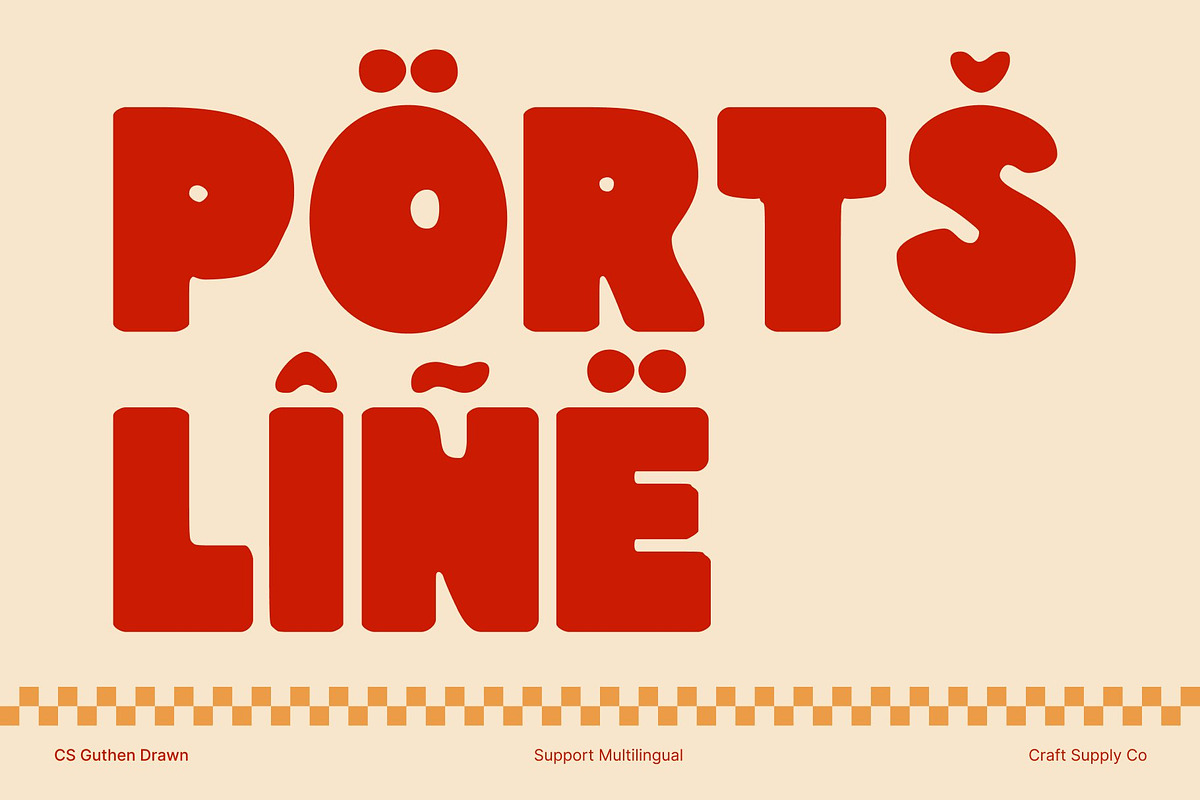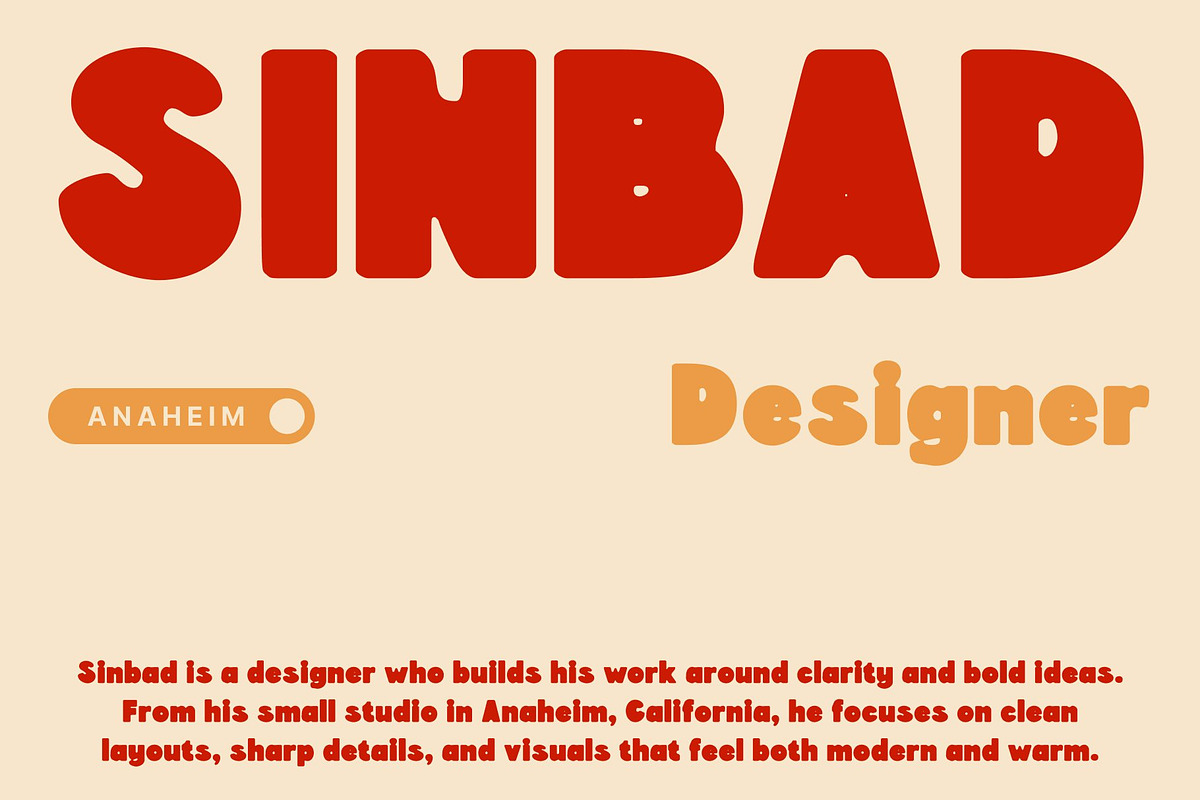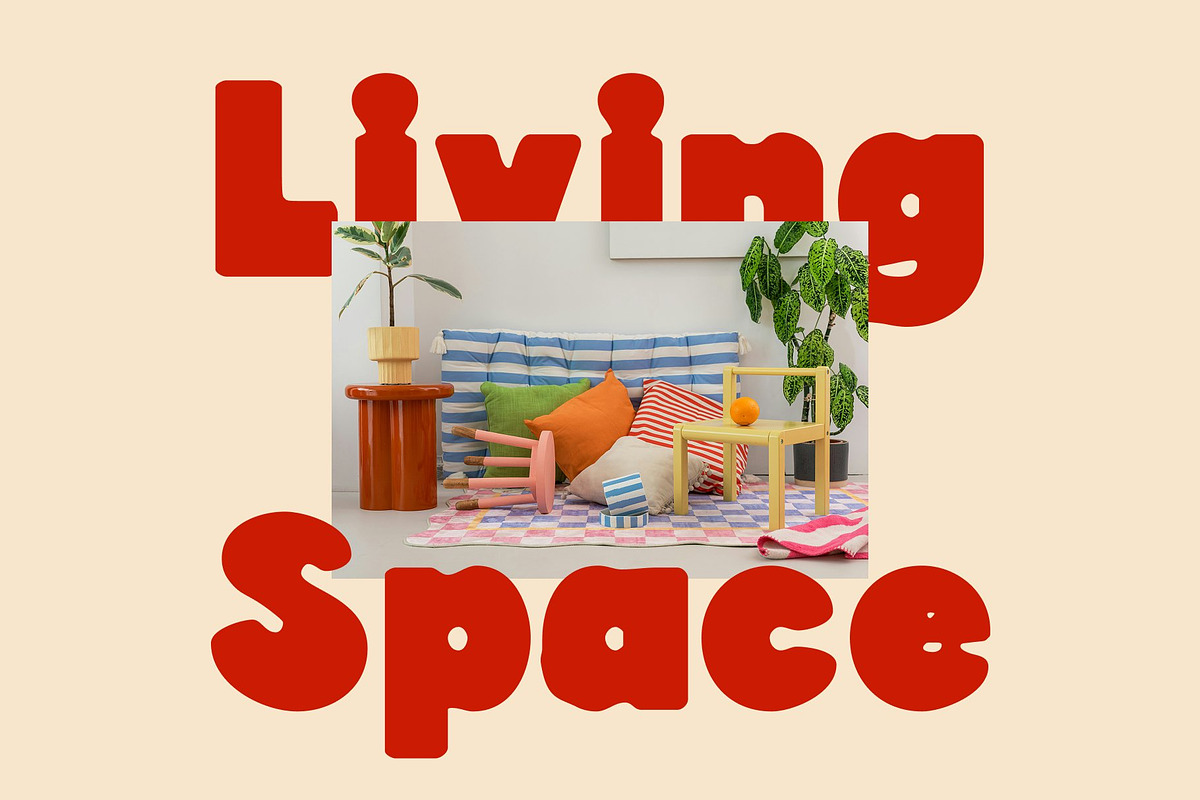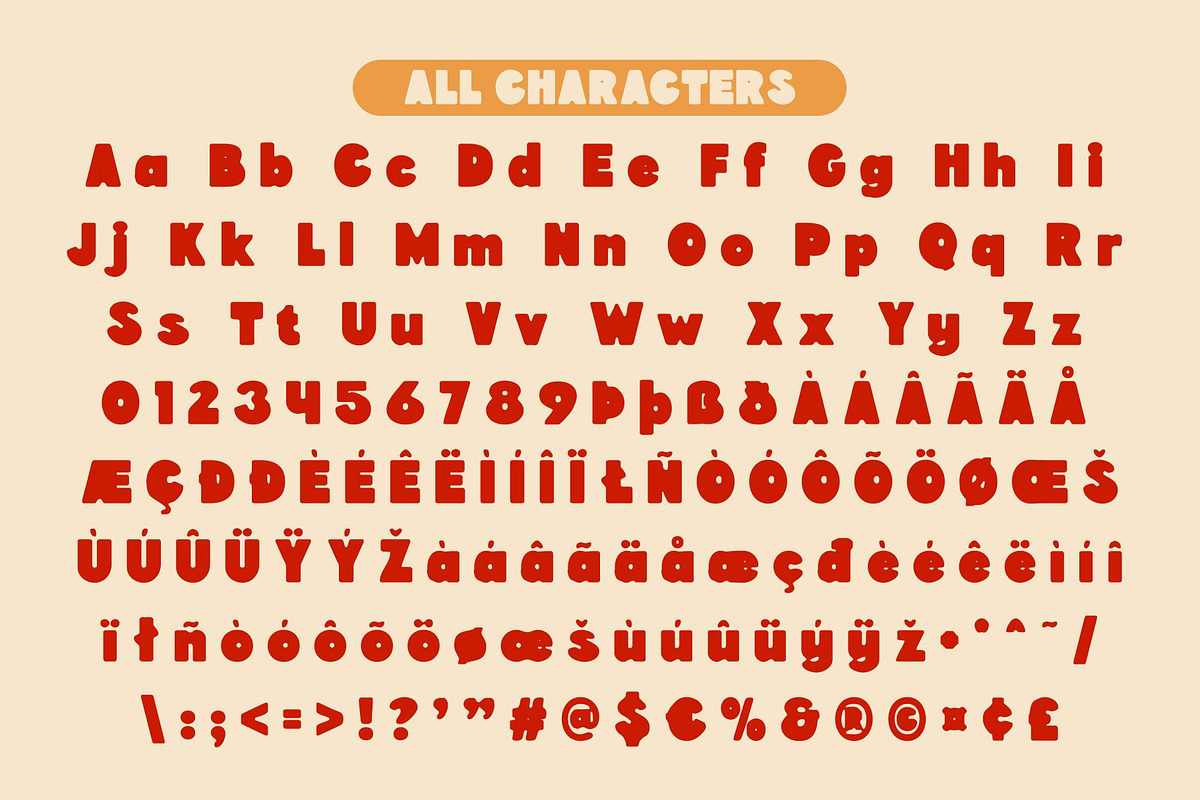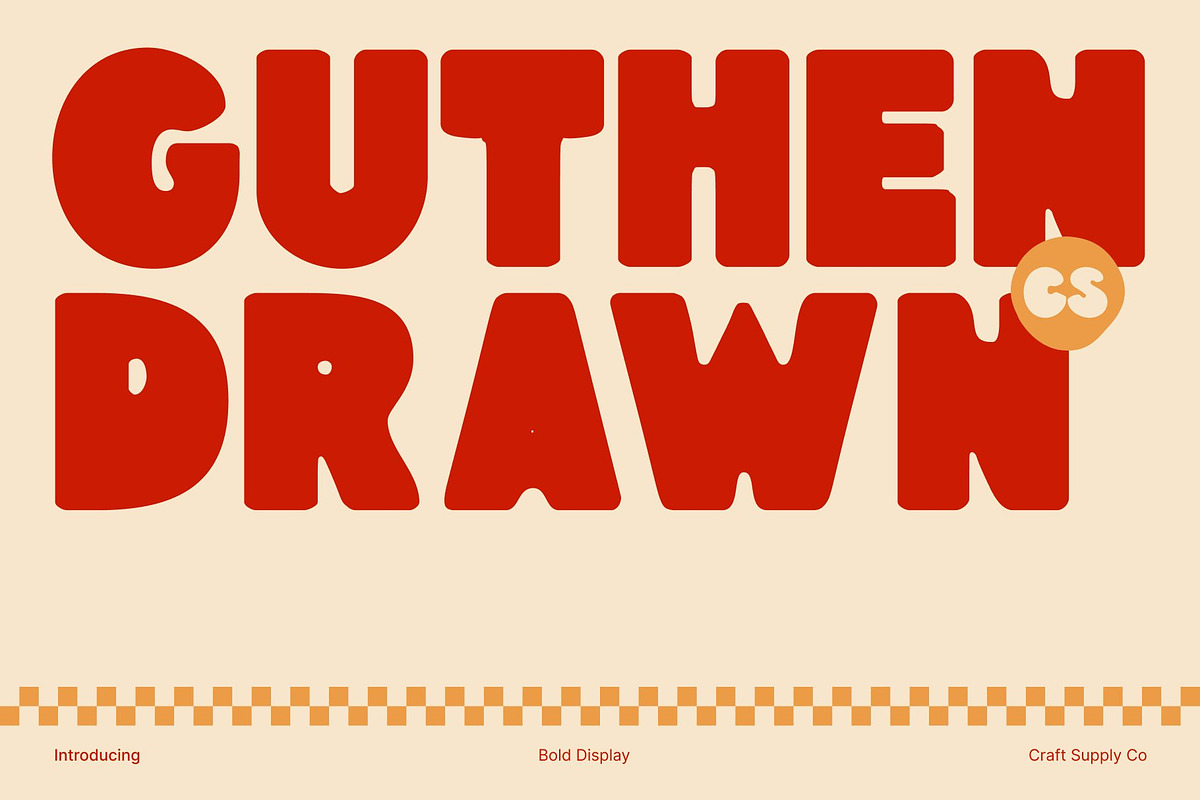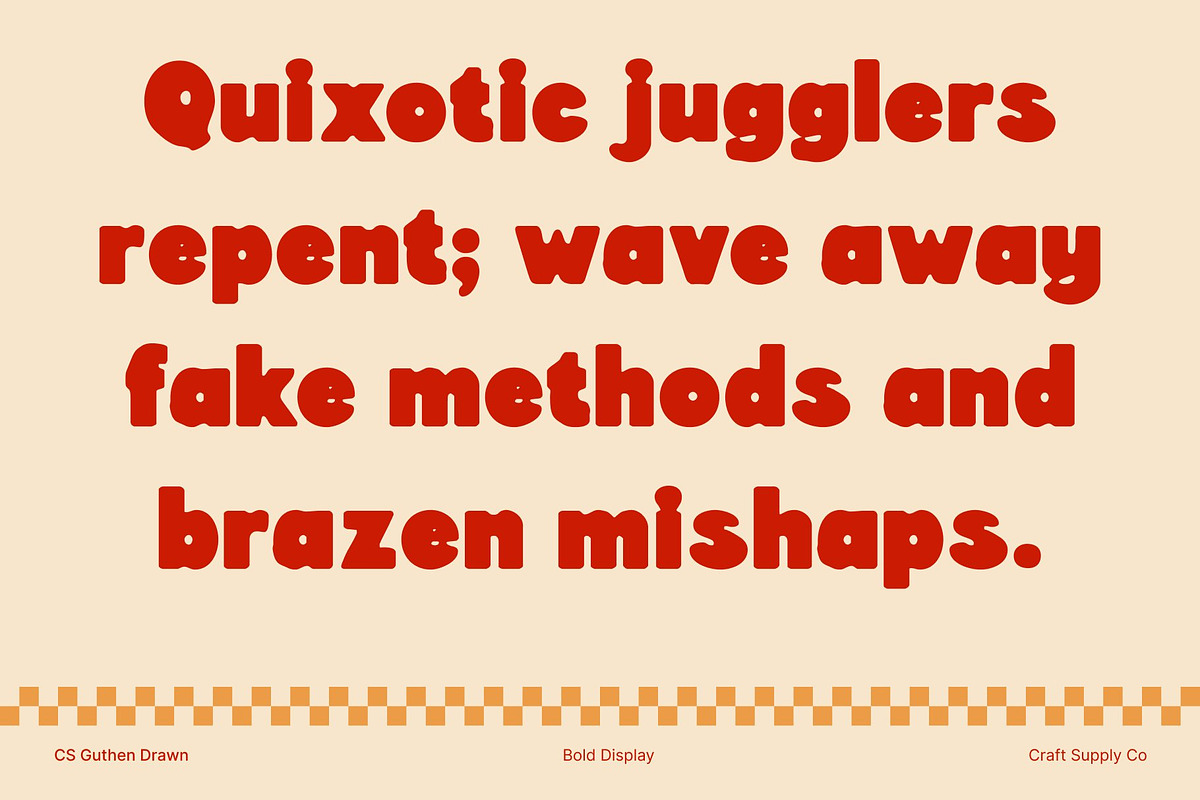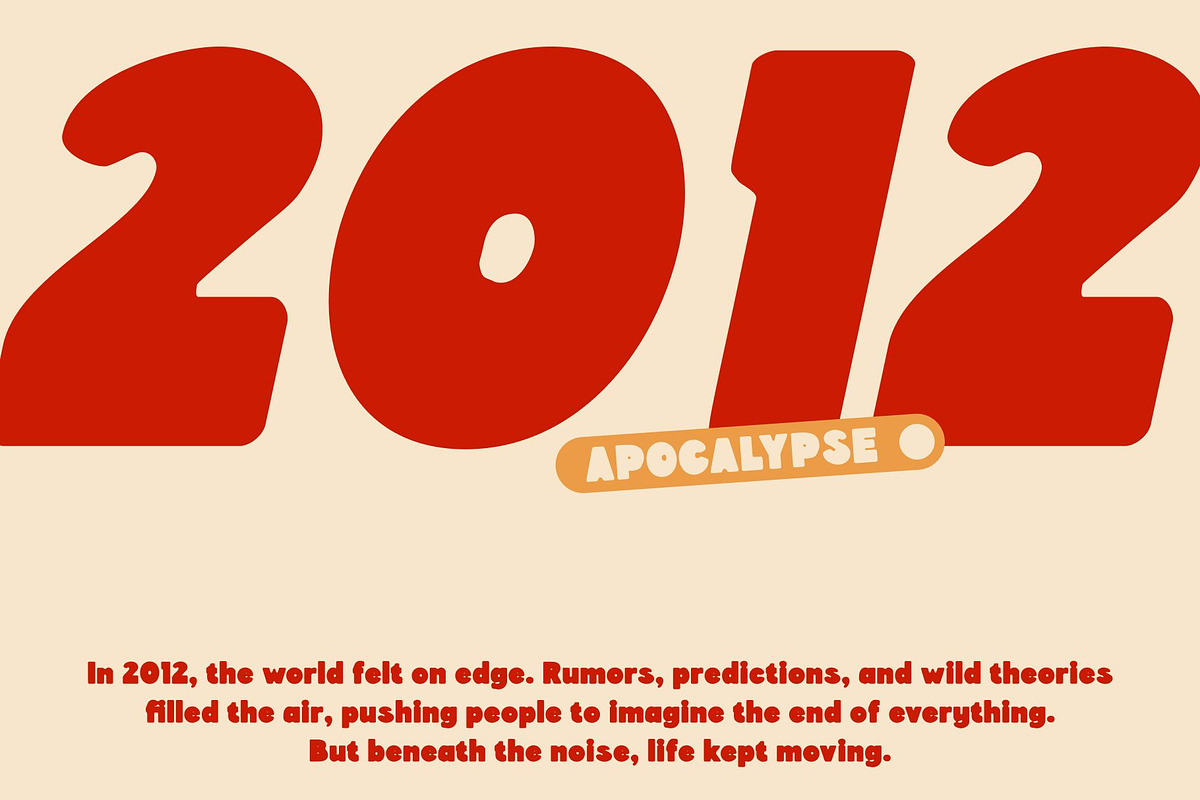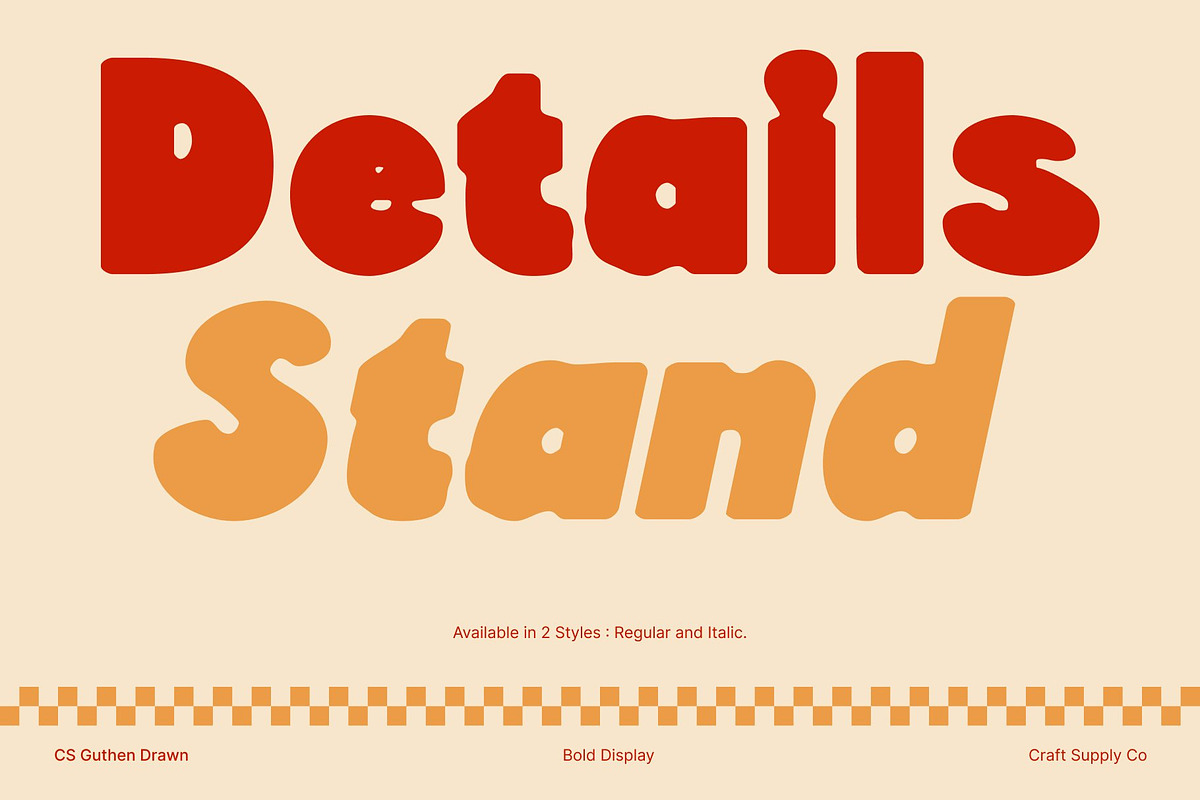
CS Guthen Drawn
CS Guthen Drawn – Bold Sans Serif with Chunky Drawn Impact
Chunky, Bold Sans Serif for Maximum Visual Power This is a bold display sans serif font designed to make a strong statement. Its thick, chunky letterforms create a commanding presence, ensuring titles, headlines, and key design elements immediately grab attention. The font’s substantial weight and confident structure convey strength, energy, and impact in every character.
Hand-Drawn Effect Adds Expressive Character The drawn effect gives this font a unique, handcrafted personality. Subtle textures and irregularities enhance the bold forms, adding depth and artistic flair. This hand-drawn touch transforms the chunky sans serif into a visually engaging typeface that feels dynamic and approachable, while still retaining its power and presence.
Perfect for Branding, Headlines, and Poster Art This font excels in applications that require visual emphasis. Its bold, thick forms are ideal for branding projects, fun and creative designs, poster art, editorial titles, and promotional graphics. The combination of strong structure and expressive drawn texture ensures your designs are not only impactful but also memorable and distinctive.
A Typeface That Combines Strength with Creativity This font is designed for projects that demand both power and personality. Its chunky, bold shapes provide authority and visibility, while the drawn textures add creative character and charm. Use this font to create designs that stand out, convey energy, and leave a lasting impression on your audience.
- CS Guthen Drawn Regular
- CS Guthen Drawn Italic